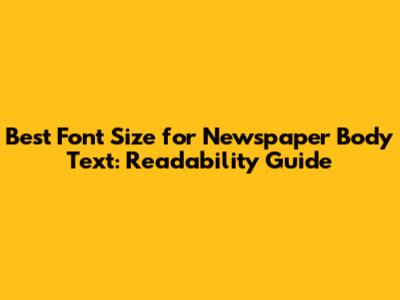
Hey guys! Ever wondered what the perfect font size is for newspaper body text? You're not alone! Getting the right font size is super crucial for making sure your newspaper is easy and enjoyable to read. After all, nobody wants to squint or strain their eyes while catching up on the latest news. Let's dive into why font size matters, what the experts recommend, and how to pick the best size for your publication.
Why Font Size Matters
Readability is King! At the end of the day, readability is the most important factor when selecting a font size. If your text is too small, people will struggle to read it, and they'll probably just give up. On the flip side, if it's too large, it can look childish or like you're shouting at your readers. Finding that sweet spot is key to keeping your audience engaged. A well-chosen font size makes the reading experience smooth and effortless, allowing readers to focus on the content rather than the effort of deciphering the words.
First Impressions Count. Think of your newspaper's body text as its voice. The font size contributes significantly to the overall tone and professionalism of your publication. A font size that is too small can make your newspaper appear dense and intimidating, while a font size that is too large can make it seem unsophisticated. By selecting a font size that is appropriate for your target audience and the subject matter, you can create a positive first impression and establish credibility with your readers. Moreover, the consistency in font size throughout the newspaper gives a sense of order and professionalism, which enhances the reader's trust and engagement.
Accessibility for All. Let's not forget about accessibility! A significant portion of your readership might have visual impairments or prefer larger text. By choosing an appropriate font size, you're making your newspaper accessible to a wider audience. This inclusivity not only expands your readership but also demonstrates a commitment to serving the needs of all readers. A font size that is easily readable ensures that everyone, regardless of their visual abilities, can access and enjoy the information you provide. This simple act of consideration can make a big difference in the overall impact and reach of your publication.
Recommended Font Sizes for Newspaper Body Text
So, what's the magic number? Generally, the consensus is that 10 to 12 points is the sweet spot for newspaper body text. This range offers a good balance between readability and space efficiency. However, it's not just about the numbers. The specific font you choose can also play a big role. Different fonts have different heights, widths, and overall appearances, even at the same point size. Therefore, it's essential to consider the font itself when making your decision. For instance, a font with a larger x-height (the height of lowercase letters like 'x') may appear larger than another font of the same point size with a smaller x-height. Experimentation is key to finding the perfect match for your newspaper.
10 Points: A font size of 10 points is often considered the minimum acceptable size for newspaper body text. It is a good choice when space is limited, and you need to fit a lot of content onto a page. However, it is essential to ensure that the font you choose is highly readable at this size. Opt for fonts with clear, well-defined letterforms and adequate spacing to prevent the text from appearing too cramped. While 10 points can be space-efficient, it may not be the most comfortable reading experience for everyone, especially those with visual impairments.
11 Points: Bumping up the font size to 11 points can make a noticeable difference in readability. It provides a bit more breathing room for the letters, making them easier to distinguish. This size is a good compromise between space efficiency and readability, making it a popular choice for many newspapers. At 11 points, the text is generally comfortable to read for most people, without appearing too large or taking up excessive space on the page. It is a versatile option that works well with a variety of fonts and layouts.
12 Points: A font size of 12 points is often considered the ideal size for newspaper body text. It offers excellent readability and is comfortable for most readers, even those with visual impairments. At this size, the letters are large enough to be easily distinguished, without appearing too overwhelming on the page. While 12 points may require slightly more space than smaller font sizes, the improved readability is well worth the trade-off. It is an excellent choice for newspapers that prioritize readability and want to provide the best possible reading experience for their audience.
Factors to Consider When Choosing Font Size
Okay, so we know 10-12 points is the general range, but how do you narrow it down for your specific newspaper? Here are a few things to keep in mind:
Target Audience: Who are you writing for? If your readership includes a large number of older adults, you might want to lean towards the larger end of the scale (12 points or even slightly larger). Older eyes often need a bit more help, and a larger font size can make a big difference in their reading experience. On the other hand, if you're targeting a younger audience, you might be able to get away with a slightly smaller font size (10 or 11 points) without sacrificing readability.
Font Choice: Not all fonts are created equal! Some fonts are naturally more readable than others. Serif fonts (like Times New Roman) are often preferred for body text because the serifs (the little feet at the end of the letters) can help guide the eye across the page. However, sans-serif fonts (like Arial) can also work well, especially if they have a clear, open design. When choosing a font, pay attention to its x-height, letter spacing, and overall appearance. A font with a larger x-height will appear larger than a font with a smaller x-height, even at the same point size. Similarly, generous letter spacing can improve readability, especially at smaller font sizes.